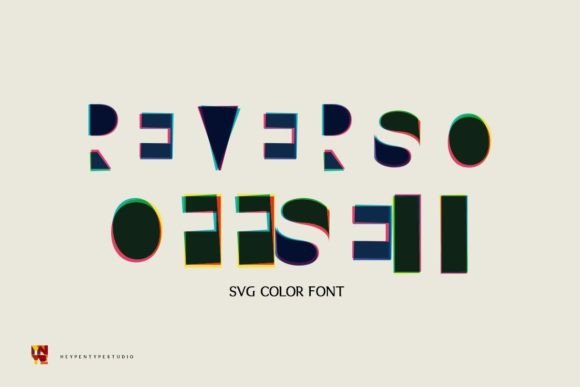
Reverso Offset First Impressions and Design Use
A Bold Statement in Modern Typography
Reverso Offset immediately grabs attention with its clean, geometric structure and subtle offset strokes. It feels modern yet approachable, with a visual personality that leans toward sophistication without being overly formal. The letters have a slight three-dimensional quality, as if they were printed with a light shadow or embossed effect. This gives the typeface a premium feel, making it ideal for projects where visual hierarchy and brand identity are crucial.
The mood created by Reverso Offset is professional but not stiff, creative yet grounded. It has a natural place in branding, editorial design, and packaging where clarity and visual interest need to coexist. Its character set includes a wide range of glyphs, which makes it suitable for both short phrases and longer body text—though it shines brightest when used sparingly.
Performance in Real-World Design Scenarios
When I tested Reverso Offset in logo design, it performed exceptionally well. The font's boldness made it stand out against simpler backgrounds, while its structured form lent itself to brand marks that needed to be both memorable and legible. For brand identity work, it paired nicely with sans serif fonts for a balanced look, especially in combination with minimalist layouts.
In packaging design, Reverso Offset added a touch of elegance. It worked particularly well on product labels and premium packaging where the font could convey a sense of quality and exclusivity. When used on posters and flyers, it brought a fresh, contemporary edge to otherwise traditional formats, helping to draw the eye and reinforce key messages.
For digital use, such as website headers and blog graphics, Reverso Offset maintained readability even at smaller sizes. However, it's best reserved for headlines rather than long paragraphs. In social media graphics and digital ads, it helped create a strong visual anchor, especially when paired with high-quality imagery.
It also showed promise in printable products like Canva templates and Cricut projects. The offset style translated well to physical materials, adding depth and dimension that felt more tactile than standard display fonts. For commercial design assets, it's a versatile option that can elevate the overall aesthetic of any project without overpowering other design elements.
Where to Use with Caution
While Reverso Offset is visually striking, it should be used carefully in certain contexts. Large headlines benefit from its bold presence, but overuse can lead to visual fatigue. Short phrases and brand marks are where it excels, so avoid using it for extended blocks of text unless you're sure about the spacing and line breaks.
It’s also important to consider how it interacts with other fonts. When paired with serif fonts, it creates a nice contrast between classic and modern styles. With sans serif fonts, it maintains a cohesive, streamlined look. Script and handwritten fonts, however, may clash with its structured form, unless intentionally used for decorative accents.
On social posts and supporting text, Reverso Offset can add a premium touch, but it shouldn't be the only font in the design. Always ensure that it complements the overall message and doesn’t distract from the content.
Readability, Hierarchy, and Brand Consistency
Readability is one of the strongest points of Reverso Offset. Despite its bold appearance, it remains legible across different mediums and sizes. This makes it a great choice for headlines, titles, and other elements that require immediate recognition. Its consistent stroke width and clear letterforms contribute to a strong visual hierarchy, helping to guide the viewer’s eye through the design.
Brand consistency is another area where Reverso Offset shines. Its clean, structured look helps maintain a professional image across various platforms—from print to digital. When used consistently in branding, it reinforces recognition and builds audience trust. The font’s unique characteristics make it instantly identifiable, which is key for creating a strong brand identity.
From a psychological standpoint, Reverso Offset conveys professionalism and creativity. It strikes a balance between being approachable and authoritative, making it suitable for a wide range of industries—from tech startups to luxury brands. Its visual mood enhances engagement by creating an environment that feels both trustworthy and visually appealing.
Designer Notes and Practical Tips
Before committing to Reverso Offset for a project, test it in black and white to see how it holds up without color. Check its readability at small sizes, especially if you plan to use it in web design or mobile interfaces. Try it on real mockups to understand how it behaves in context, rather than just on screen.